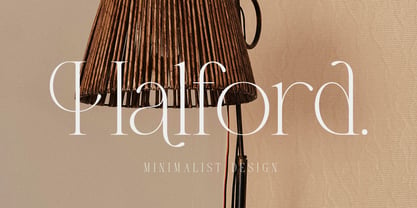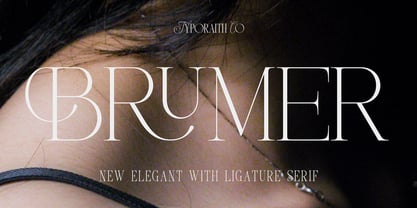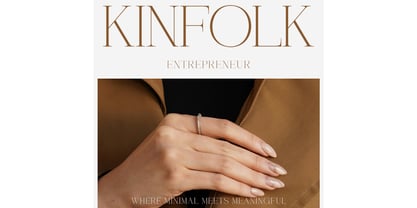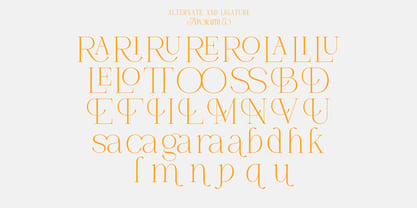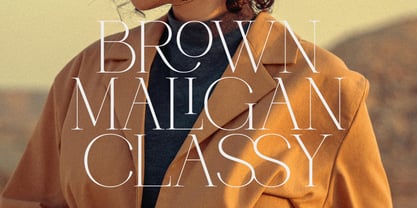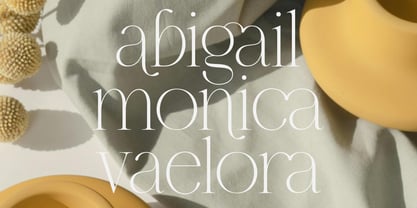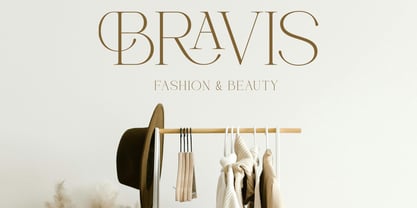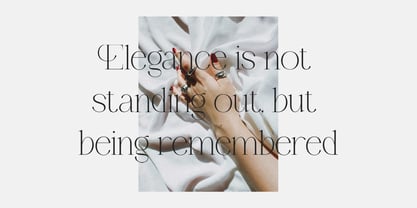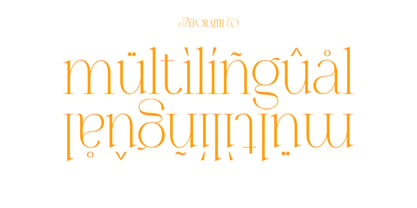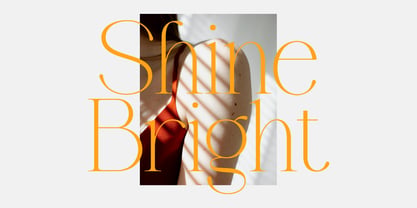
Brumer
by Typoraith Co
The Brumer Font Family was designed by Rendy Riyananda and published by Typoraith Co. Brumer contains 1 styles. More about this family
Brumer is an elegant serif font with a touch of luxurious ligatures designed to exude classic character and modern togetherness. Suitable for luxury branding projects, wedding invitations, editorials, product packaging, to high-end fashion logos. Includes: Brumer Files Uppercase & lowercase Ligatures & alternates Multilingual support Punctuation & symbols Intructions Enhance your design quality with strong and elegant characters from Brumer. Make every word stand out!
Designers: Rendy Riyananda
Foundry: Typoraith Co